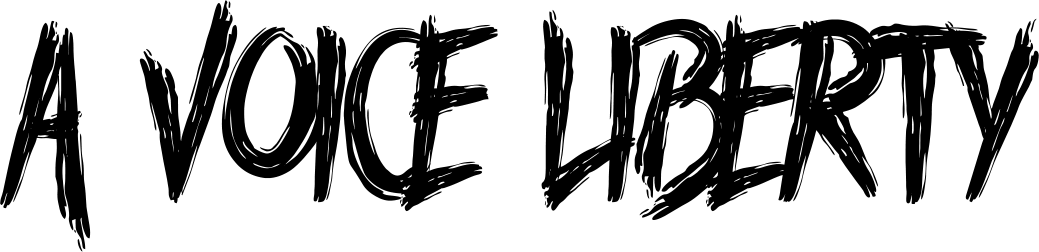
A Voice Liberty Font
A Voice Liberty is a script font with a punk and mysterious vibe and a messy style. It can be used for any graffiti, channel banner, teenagery movies, flyers or album titles, event titles, and product introductions and it can be a good choice if you want to have a modern headline. This 80s brush font only supports capital letters.